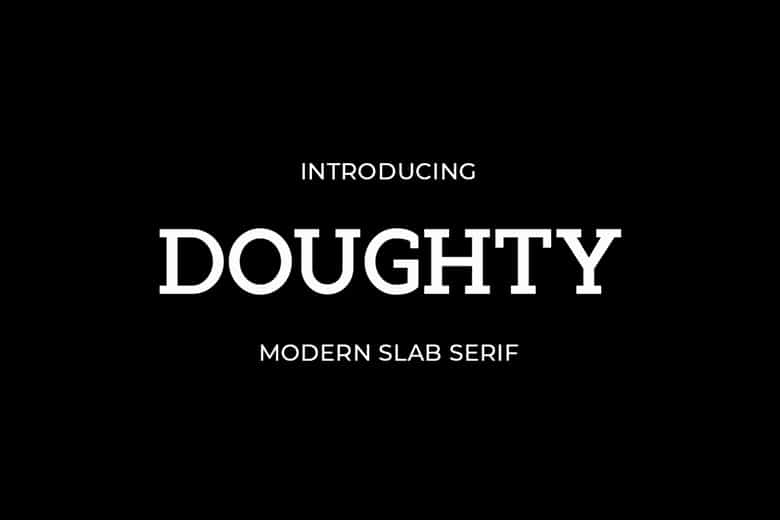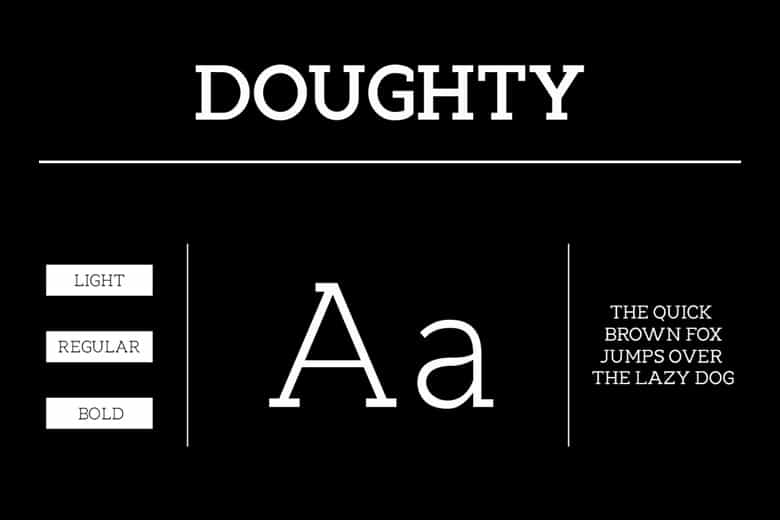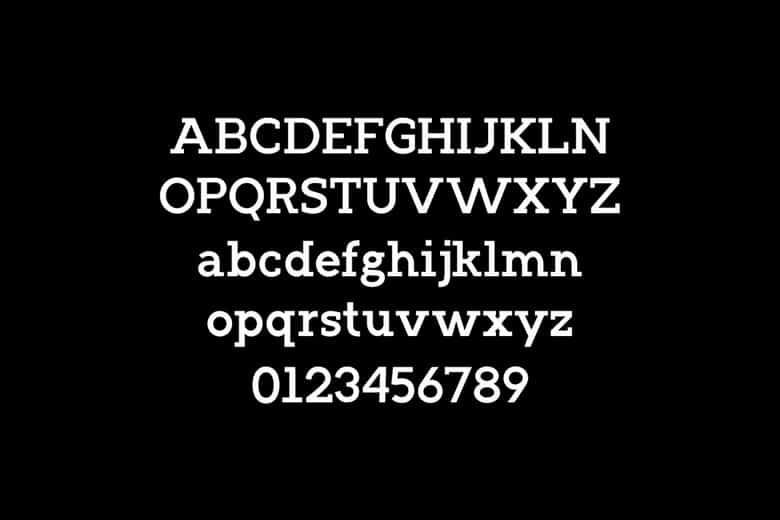
Doughty is a simple and neat slab serif typeface. It pairs well with many different projects and will bring attention to your original ideas. Doughty features bold and clear, almost architectural letters and a modern design, which makes it suitable for titles, logos, branding, and posters.